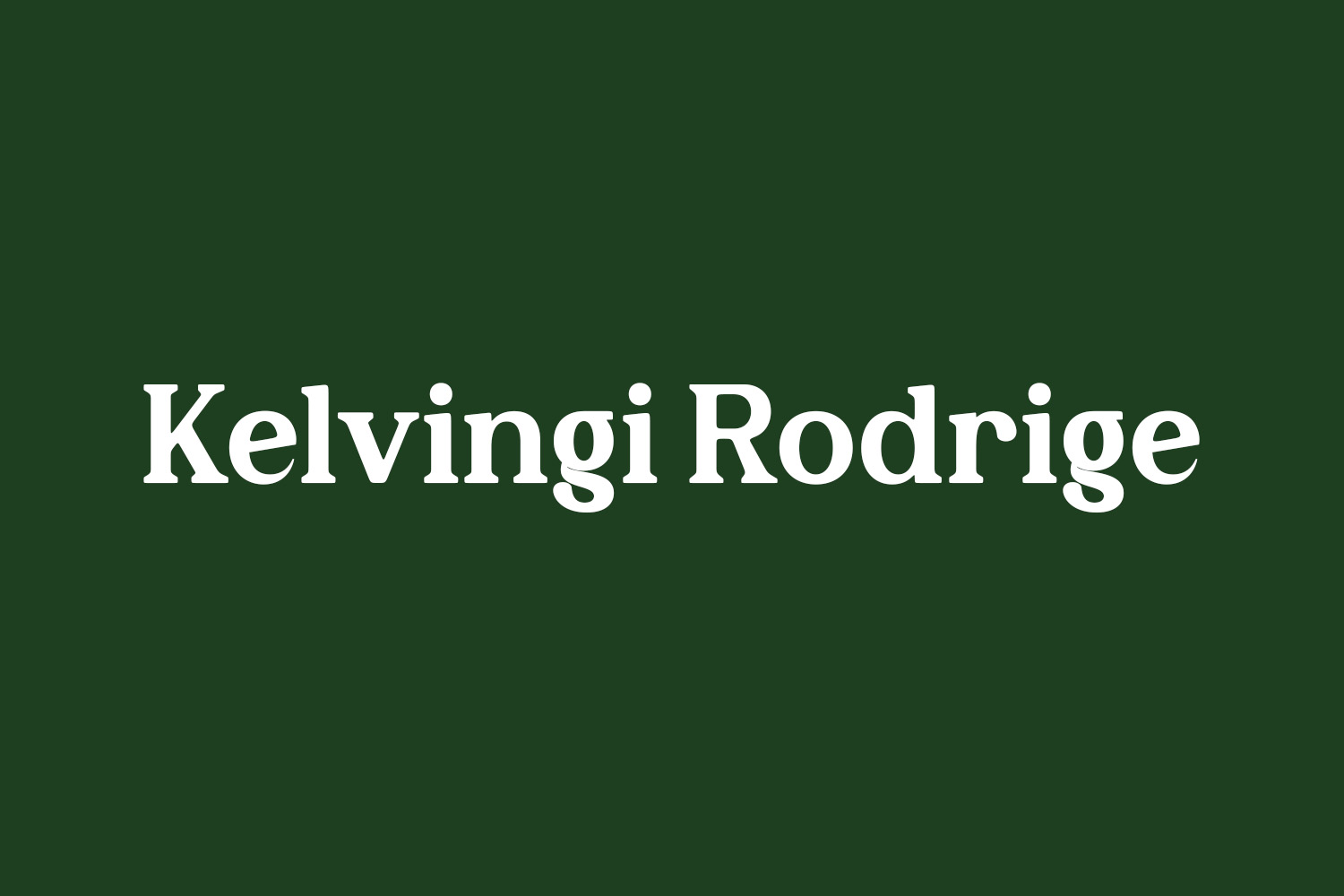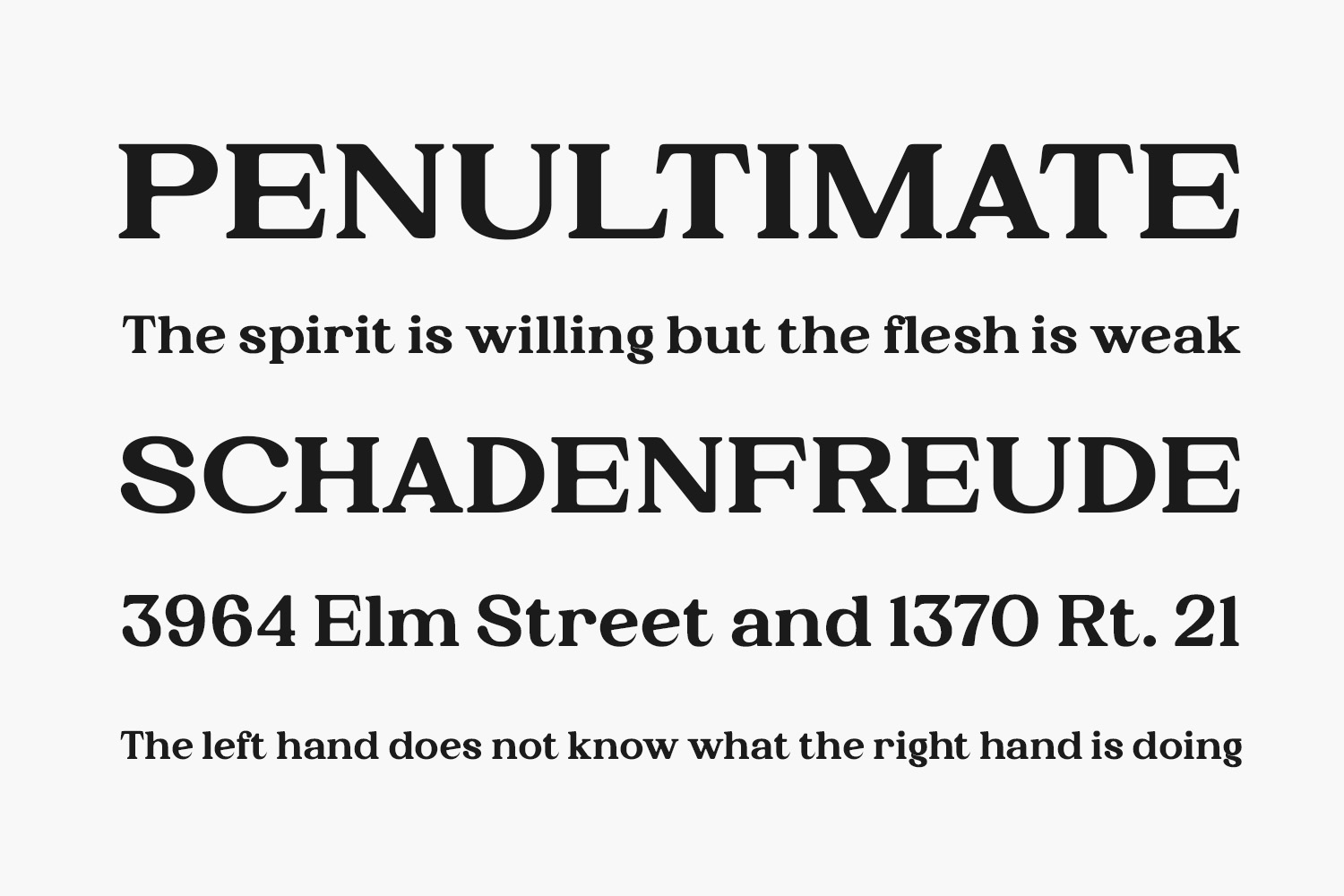
Kelvingi Rodrige Free Font Family is a cool, trendy, and versatile serif font. It can easily be added to a variety of design ideas, both formal and informal. This font was particularly crafted for those who need a beautiful and refreshing look to their designs. Kelvingi Rodrige Free Font was designed by Letterena Studios and is free for personal use only. Please purchase the full version for commercial use.
Kelvingi Rodrige Regular The quick brown fox jumps over the lazy dog
Kelvingi Rodrige Italic The quick brown fox jumps over the lazy dog